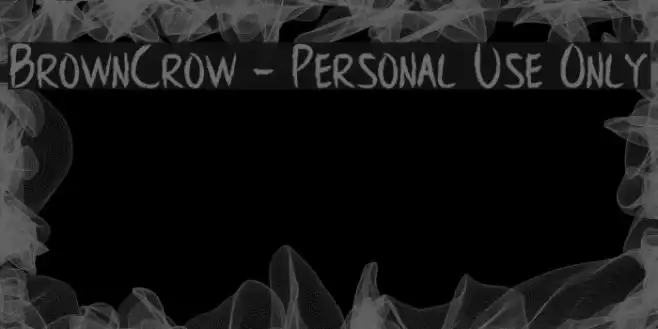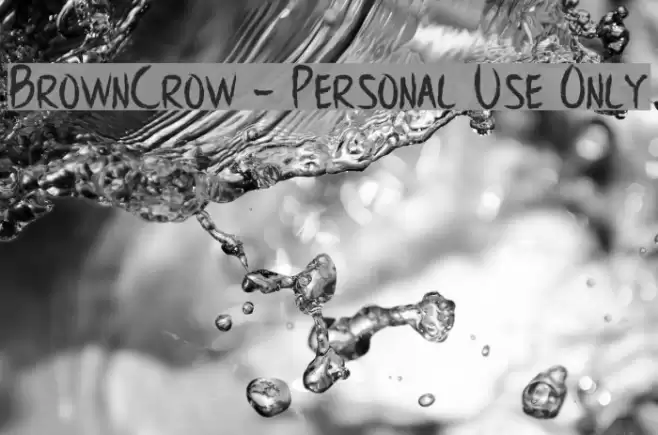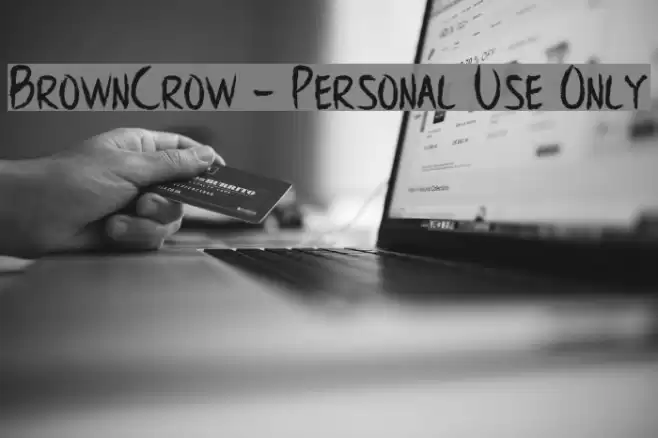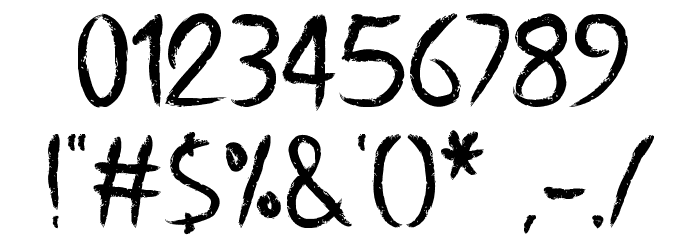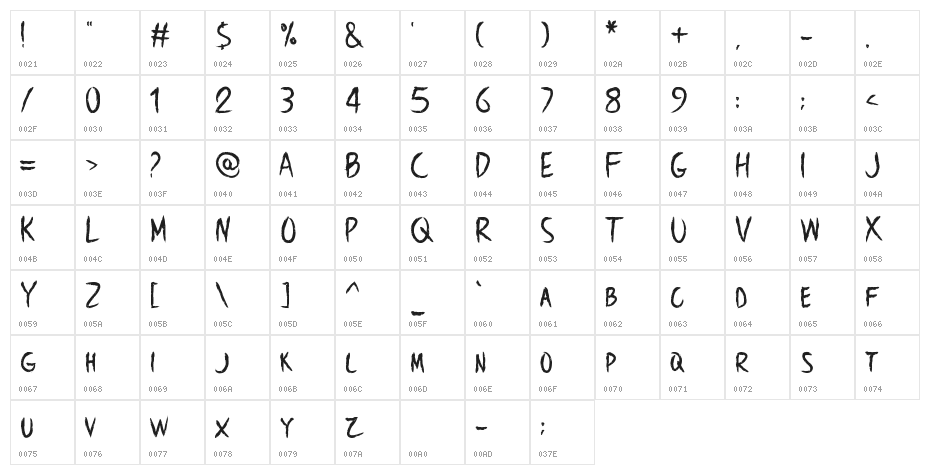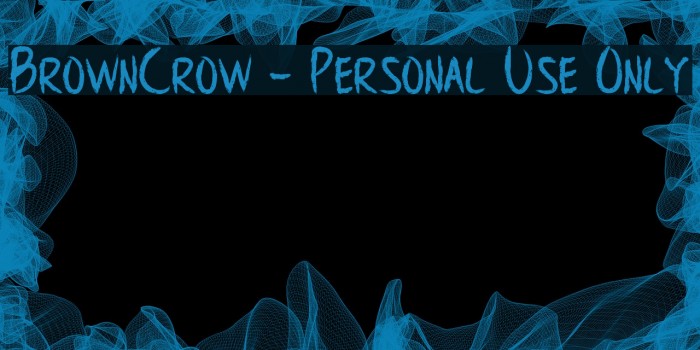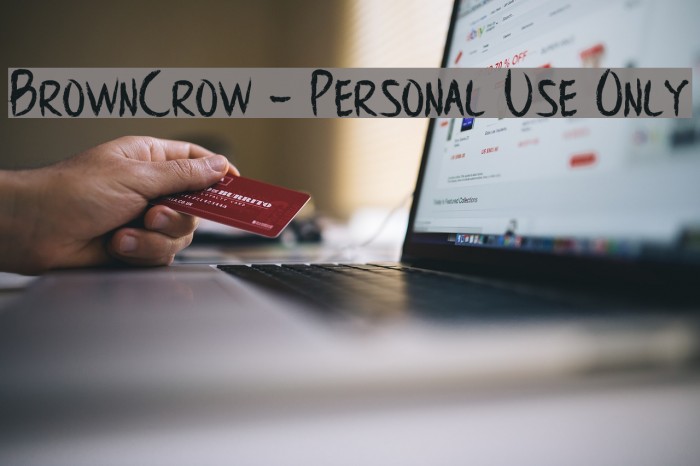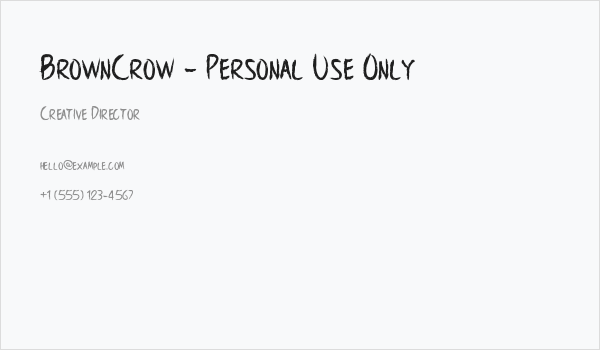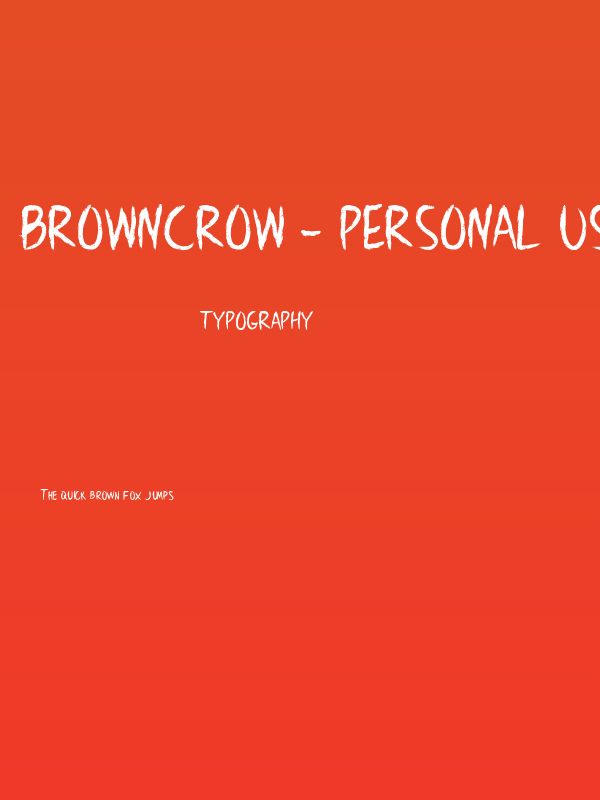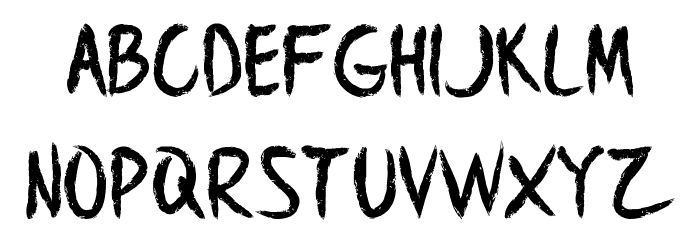
BrownCrow - Personal Use Only Font
BrownCrow - Personal Use Only Description
This font features a bold and expressive style with a hand-painted appearance. The characters are crafted with a rough, textured edge, giving them a dynamic and energetic feel. The uppercase and lowercase letters maintain a consistent style, with a slightly irregular form that adds to the handcrafted aesthetic. The numbers and special characters follow the same design principles, ensuring a cohesive look across all glyphs. This font's unique style makes it stand out, perfect for projects that require a touch of creativity and individuality.
A bold, hand-painted style font with a textured, expressive appearance from Uncategorized fonts.
- Proposed Projects: Ideal for posters, album covers, branding projects, and any design that needs a bold, artistic touch.